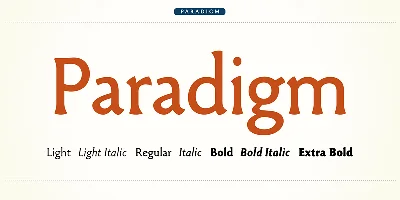
Paradigm Pro Font
Paradigm Pro Font is perfect for innovative technology companies, cutting-edge software development firms, revolutionary startup branding, progressive research institutions, forward-thinking consulting services, disruptive innovation presentations, advanced scientific publications, modern academic institutions, transformative business solutions, and pioneering digital transformation campaigns. Its revolutionary professional character makes it ideal for projects requiring innovation leadership and paradigm-shifting authenticity.
What makes Paradigm Pro Font exciting is its visionary embodiment of innovation leadership and paradigm transformation with forward-thinking letterforms and progressive characteristics that capture the essence of revolutionary thinking and professional excellence. The font features systematic proportions, innovation-inspired details, and transformative character construction that create authentic progressive atmosphere and visionary appeal. Its pioneering personality brings credibility and forward momentum to contemporary designs while maintaining the clarity essential for professional communications and innovation presentations. The carefully crafted progressive elements ensure visual innovation while preserving the distinctive character that embodies the essence of paradigm leadership and transformative excellence.
Paradigm Pro Font comes in multiple innovative variations including Light, Regular, Medium, Bold, and Revolutionary styles. Each family member maintains the distinctive progressive character while offering comprehensive flexibility for innovation typography and transformative brand system development. The complete font family includes alternate characters, innovation symbols, and progressive punctuation marks that provide extensive tools for creating immersive visionary design experiences and authentic paradigm-shifting brand storytelling.
Whether you're developing innovation brands, technology companies, or transformative professional projects, Paradigm Pro Font provides the visionary leadership needed to communicate with forward-thinking audiences and innovation professionals who appreciate paradigm transformation and progressive excellence. The font's revolutionary appeal resonates with innovators, tech entrepreneurs, and transformation leaders seeking authentic innovation credibility and progressive sophistication. Its comprehensive character set includes innovation symbols and transformative marks, making it perfect for creating complete paradigm brand systems and memorable innovation storytelling across diverse technology applications and transformation-focused design projects that celebrate revolutionary thinking and paradigm excellence.